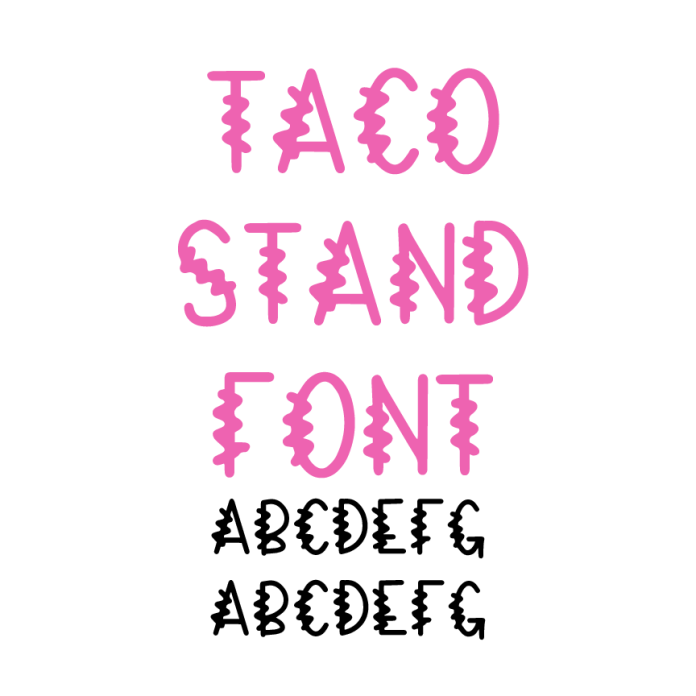
Introducing Taco Stand Font – a fun, playful zig-zag font that adds a touch of excitement to your Silhouette projects! With its quirky, energetic letterforms and bold zig-zag details, Taco Stand is perfect for creating vibrant party invitations, T-shirts, banners, vinyl decals, and more. This cut-friendly font ensures smooth, sharp cuts on your Silhouette machine, making it ideal for crafting food-themed designs, festive signage, or playful home décor. Whether you're celebrating a fiesta, creating personalized gifts, or adding a fun twist to your designs, Taco Stand brings a lively, fun vibe to every project. Download Taco Stand today and spice up your creativity!